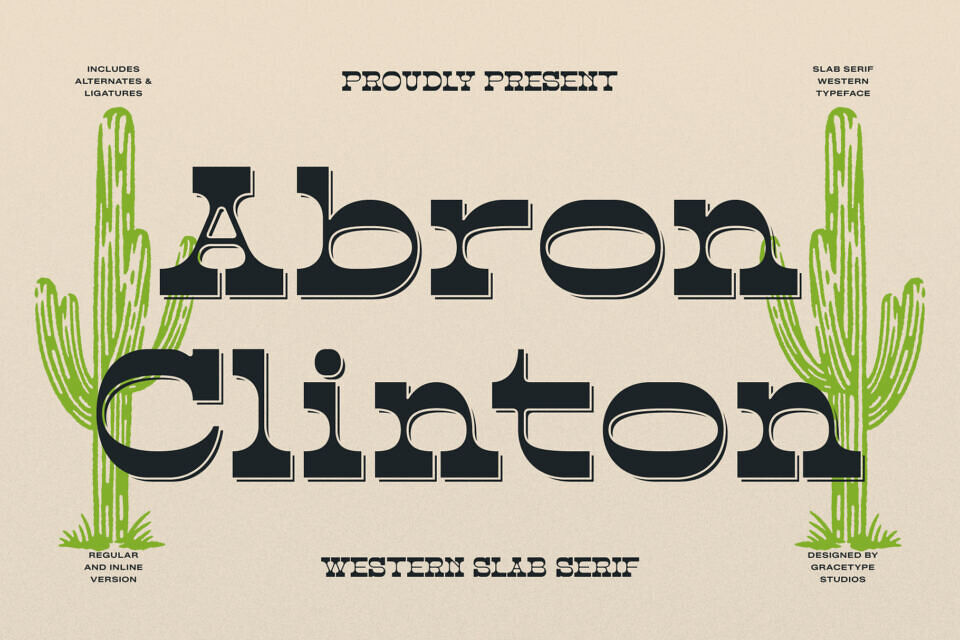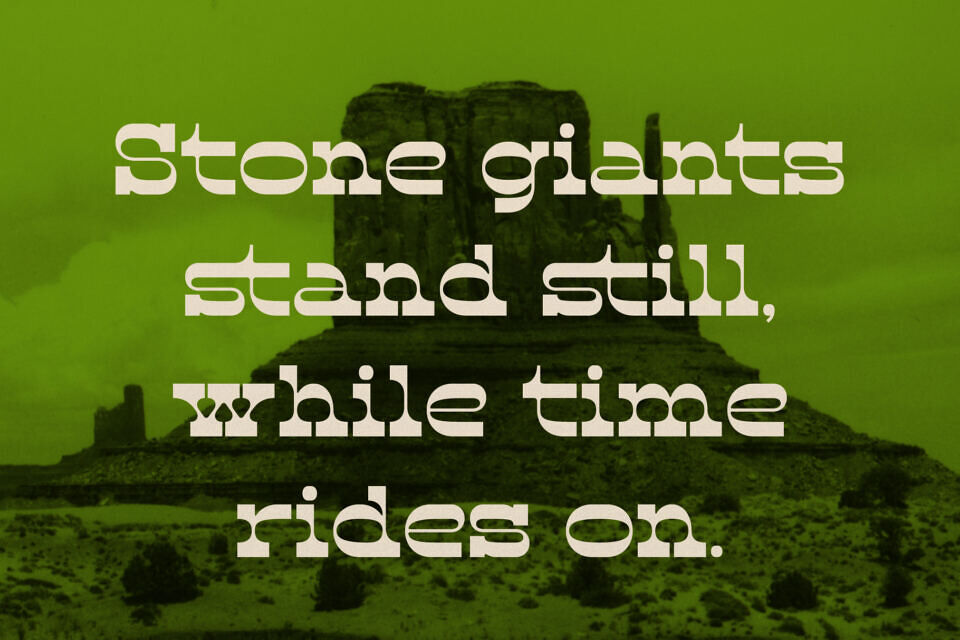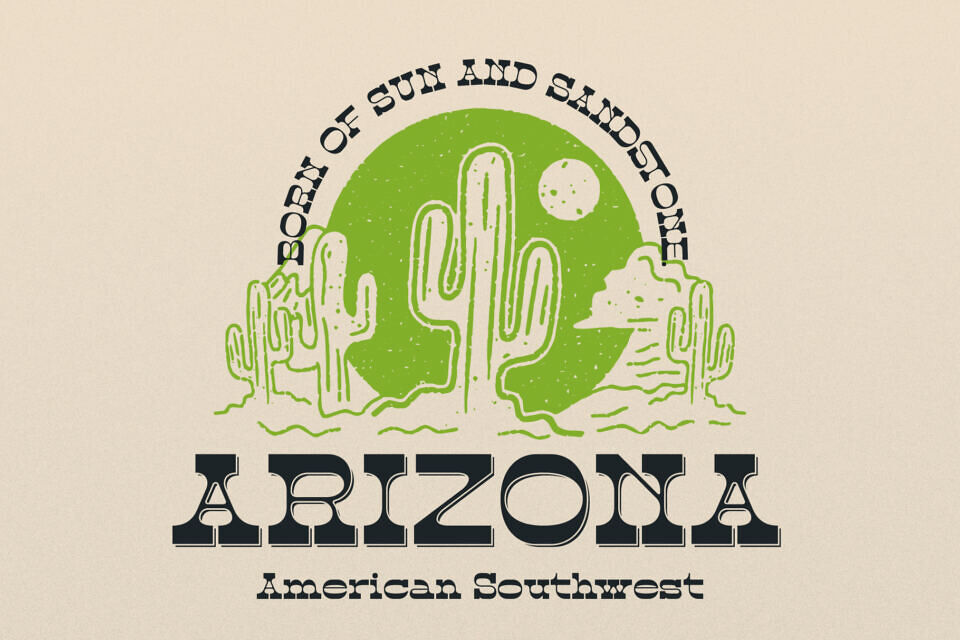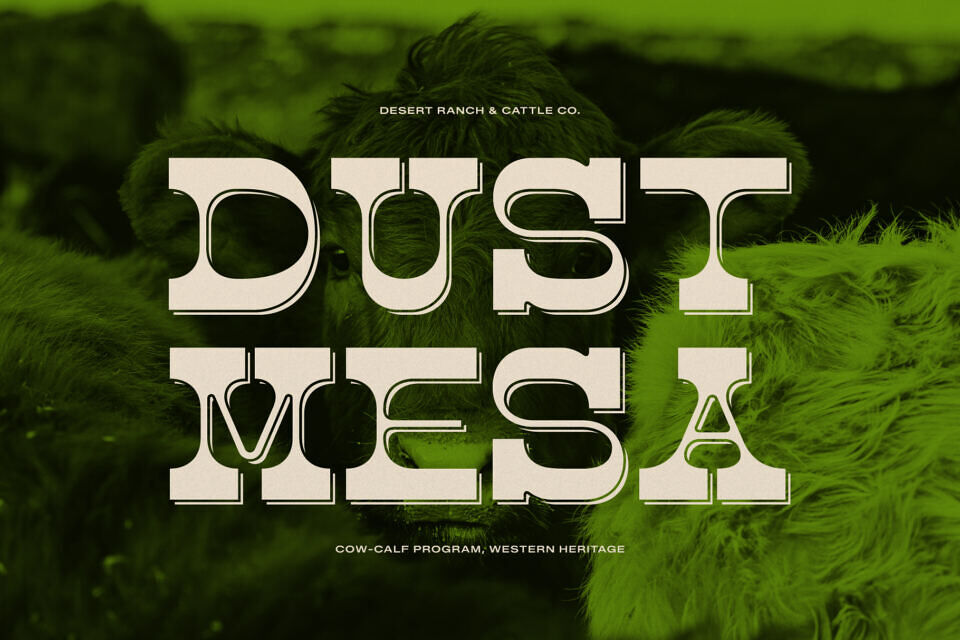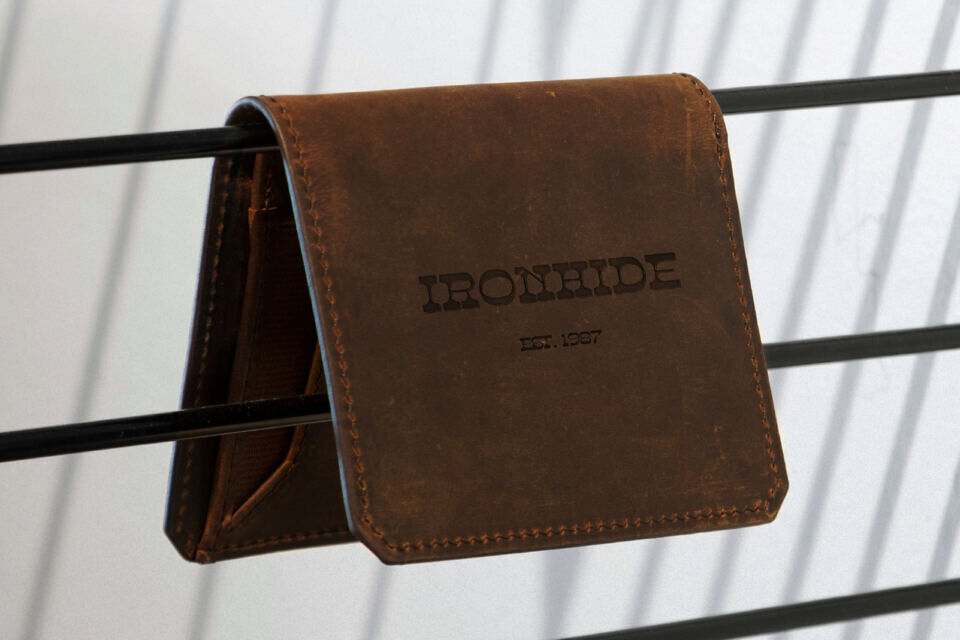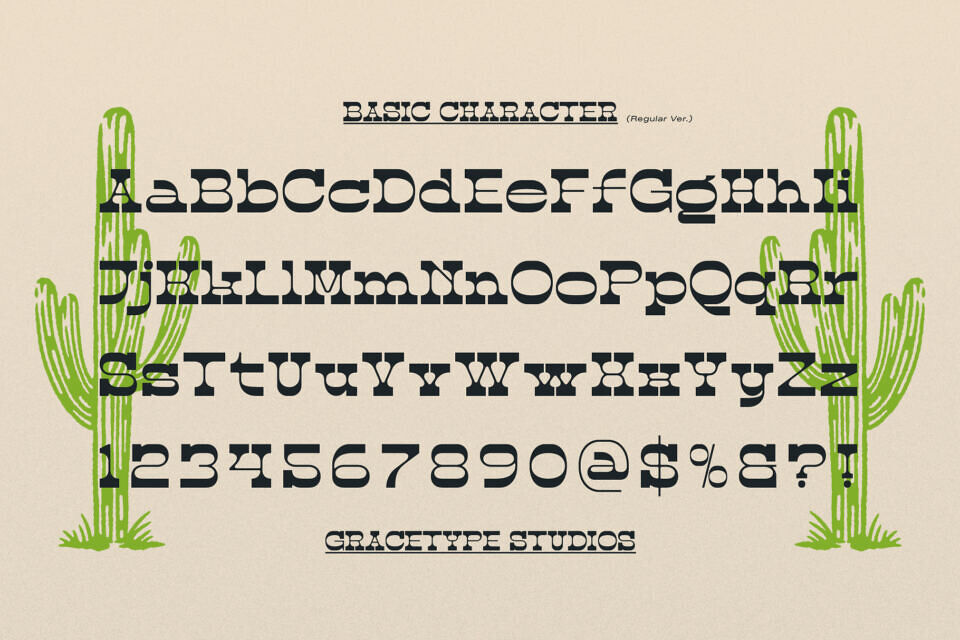
Abron Clinton Inline Font
Abron Clinton is a Western Slab Serif from Gracetypestudio, suitable for any projects such as: logos, branding projects, homeware designs, product packaging, mugs, quotes, posters, shopping bags, t-shirts, book covers, name card, greeting cards, label, special events, and all your other lovely projects that need a rustic taste.